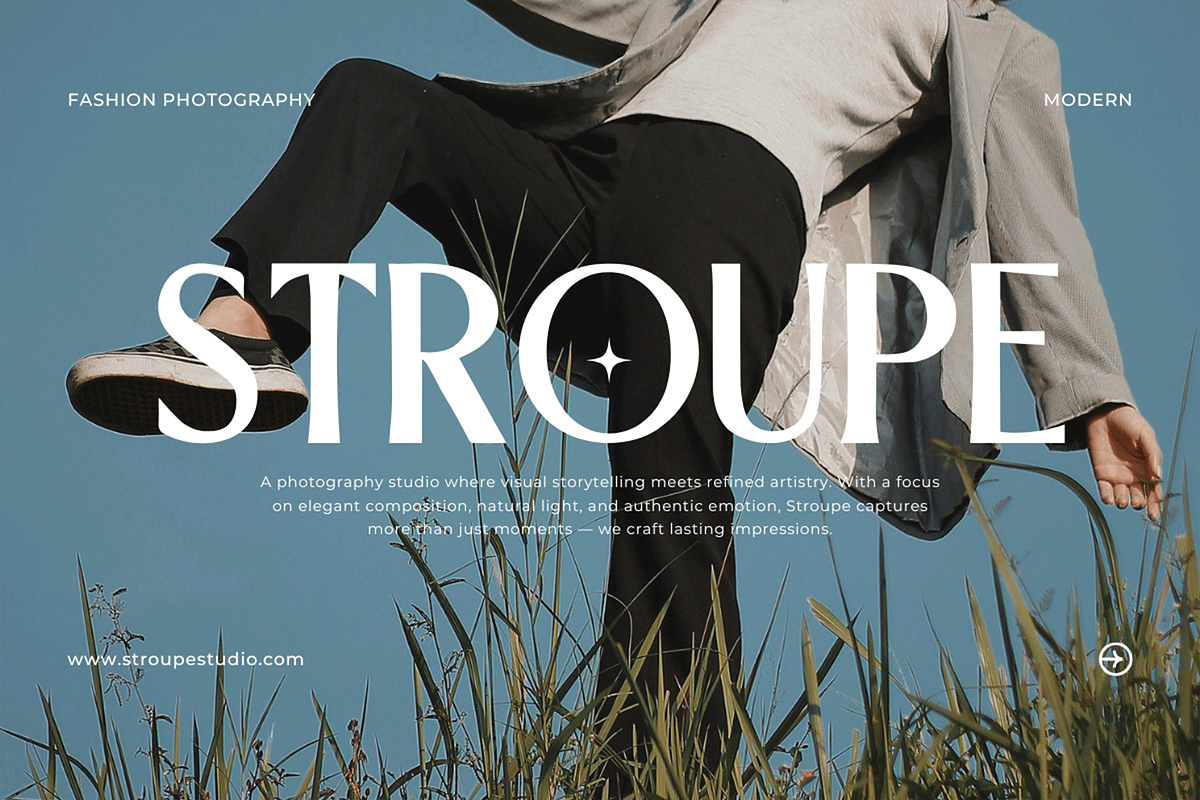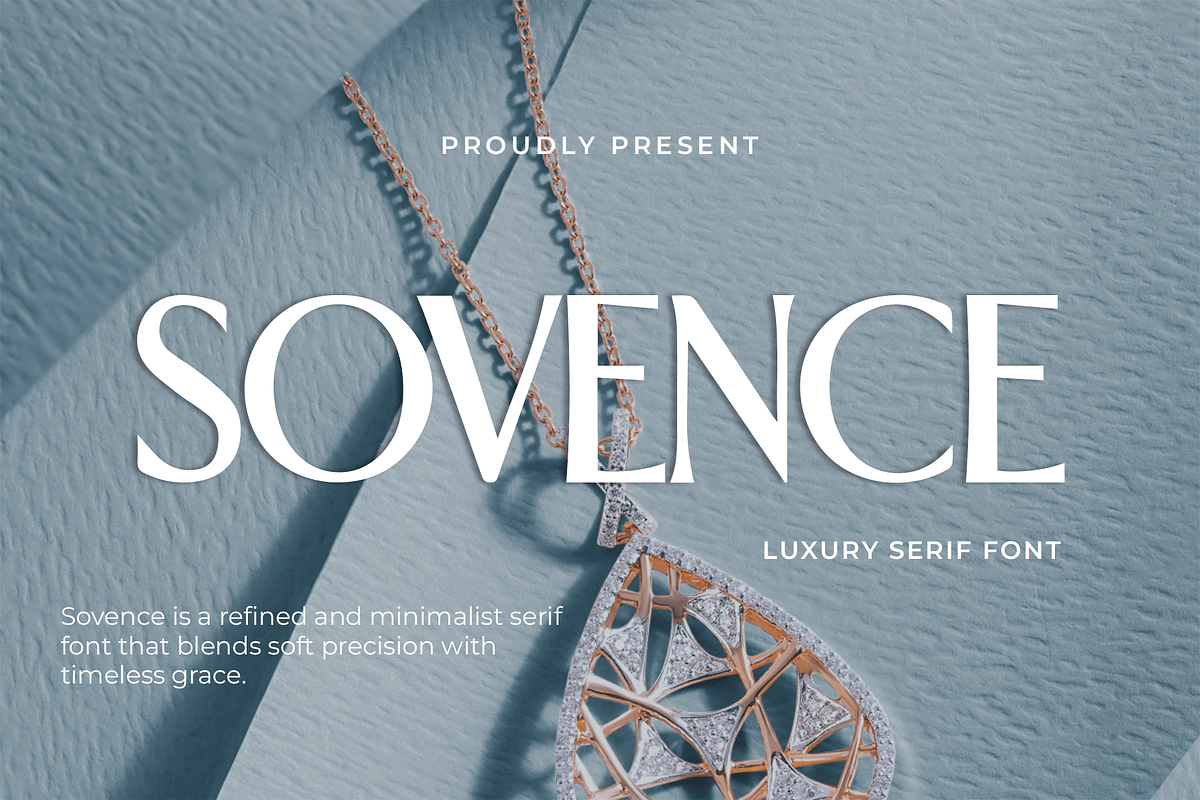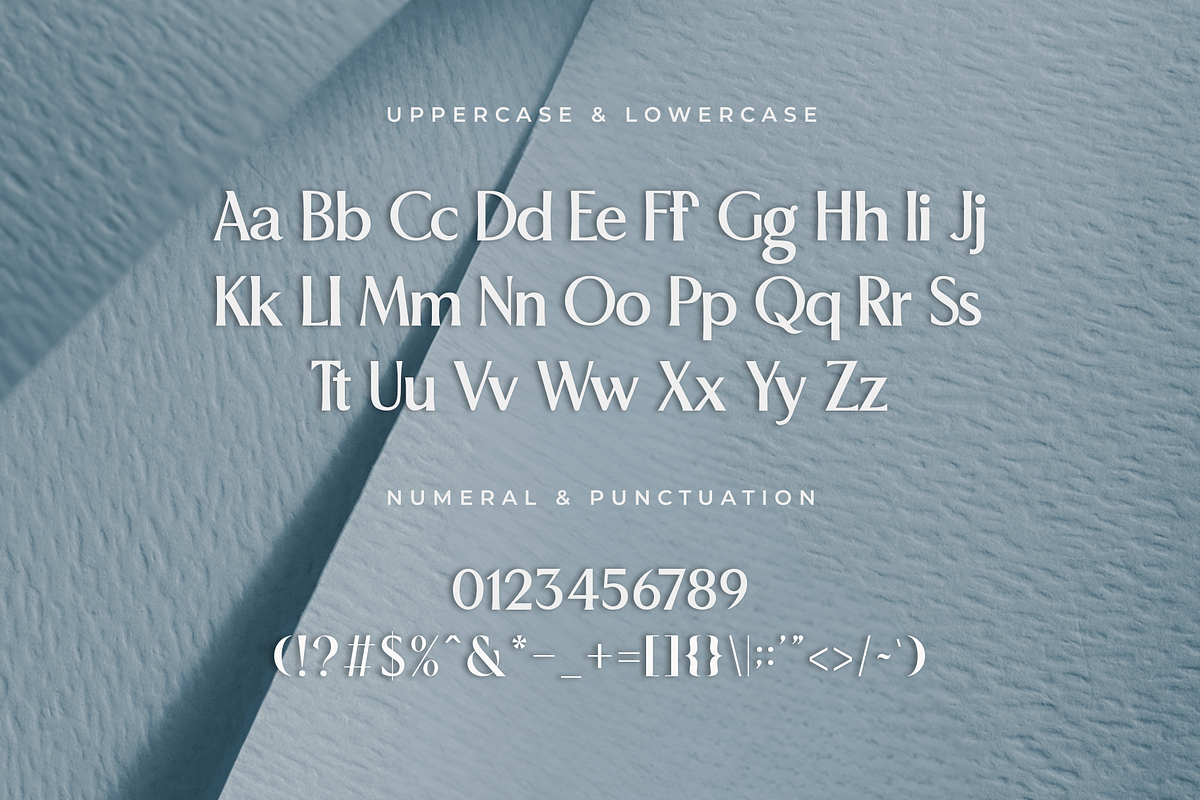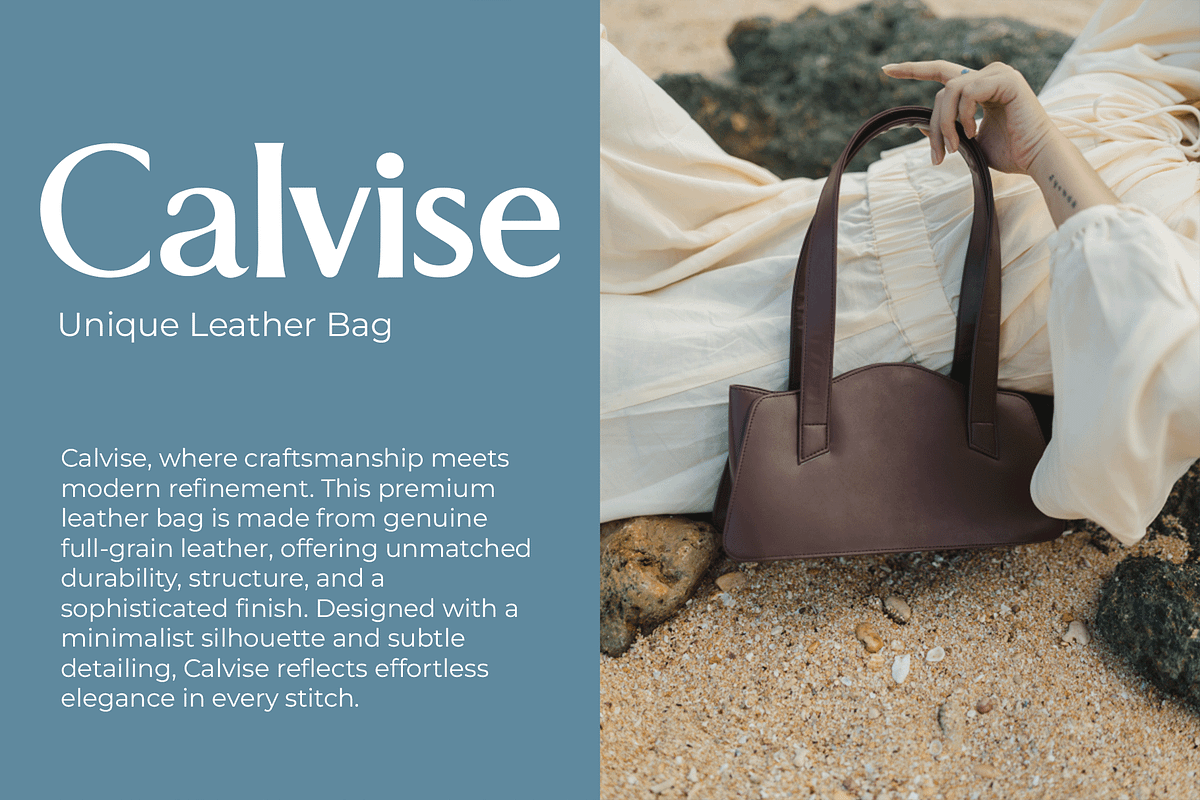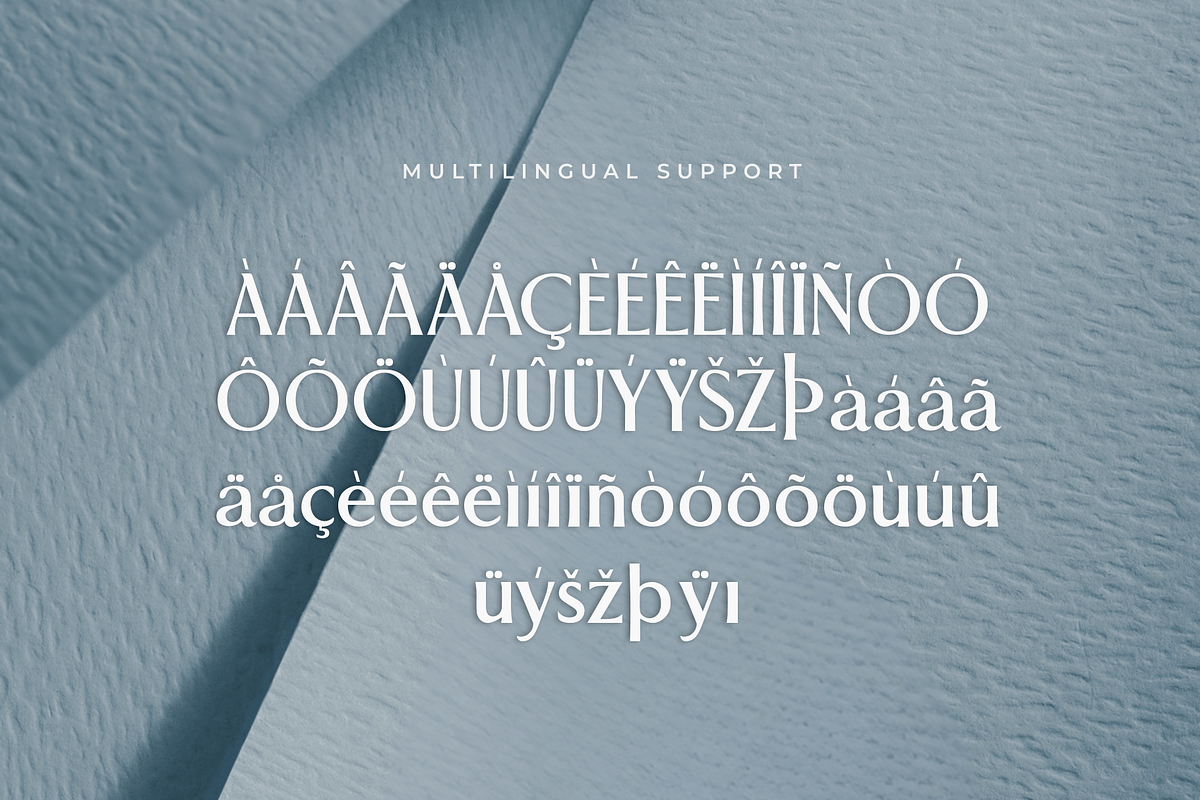
Sovence – A Luxury Serif Font
Sovence is a luxury serif font crafted to embody elegance, prestige, and modern refinement. With its high-contrast strokes, graceful serifs, and well-balanced proportions, Sovence is the perfect choice for upscale branding, editorial headlines, wedding stationery, and luxury product packaging.
This typeface brings a classic aesthetic with a contemporary twist, making it suitable for both traditional and modern designs. Sovence includes uppercase and lowercase letters, punctuation, multilingual support, and stylistic alternates to give your typography added personality and flexibility.
Whether you're designing a high-fashion magazine spread or a luxury logo, Sovence ensures your work stands out with class and confidence.